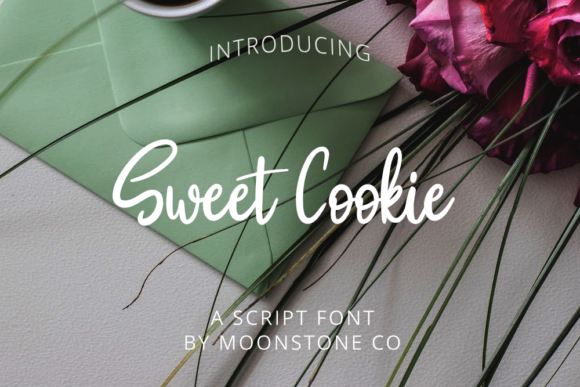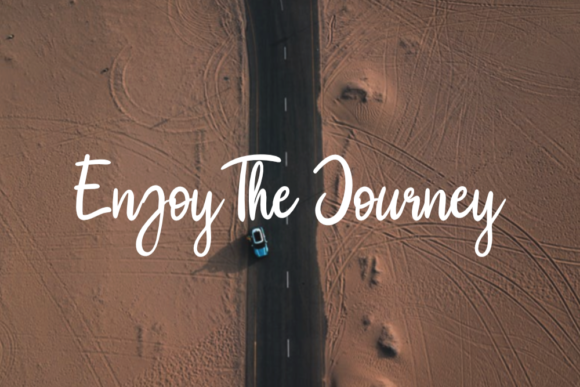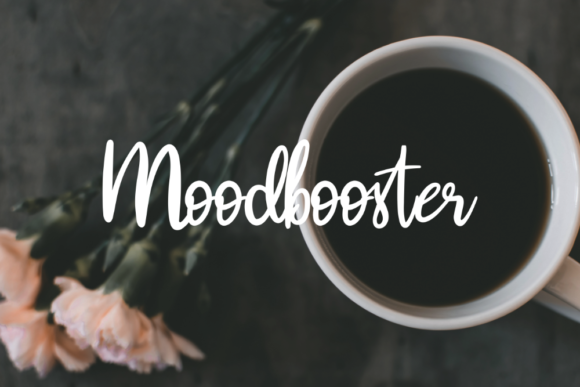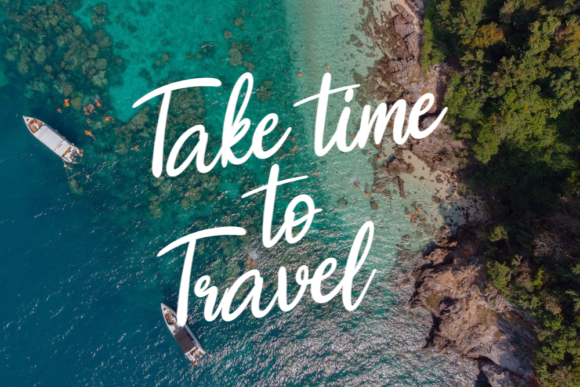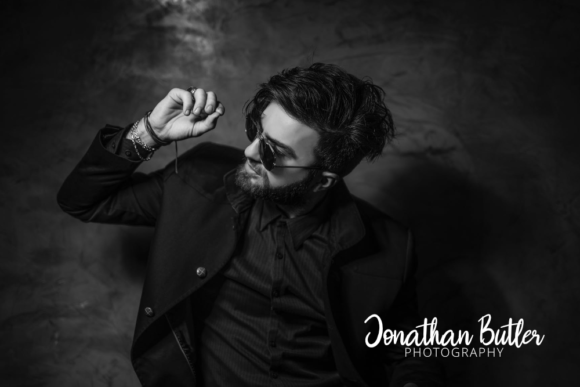
Sweet Cookie Font
The Sweet Cookie is an elegant handwritten script. It’s great for branding, logos, lettering, clothing, posters, magazines, and every other design which needs a luxurious feel.